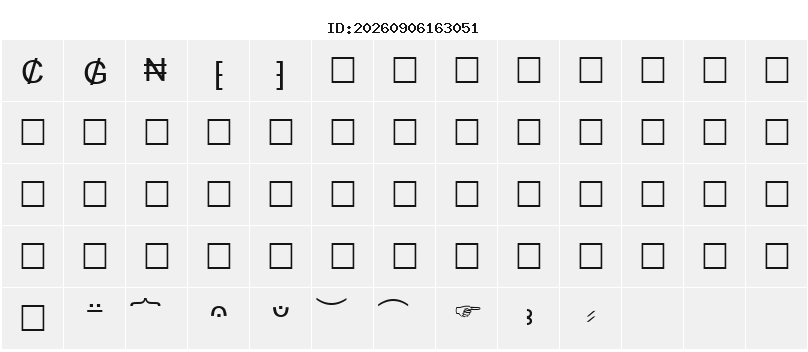
TWA Others Preview
• Font Name: TWA Others
• Full Font Name: TWA Others
About TWA Others.ttf
TWA Others.ttf is a modern, elegant sans-serif font designed for ultimate readability and visual harmony. Perfect for branding, headlines, web design, and print materials.